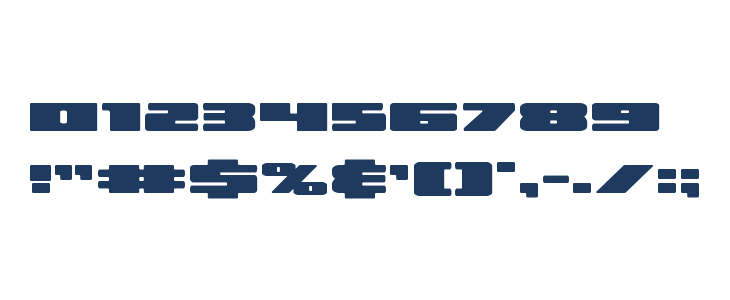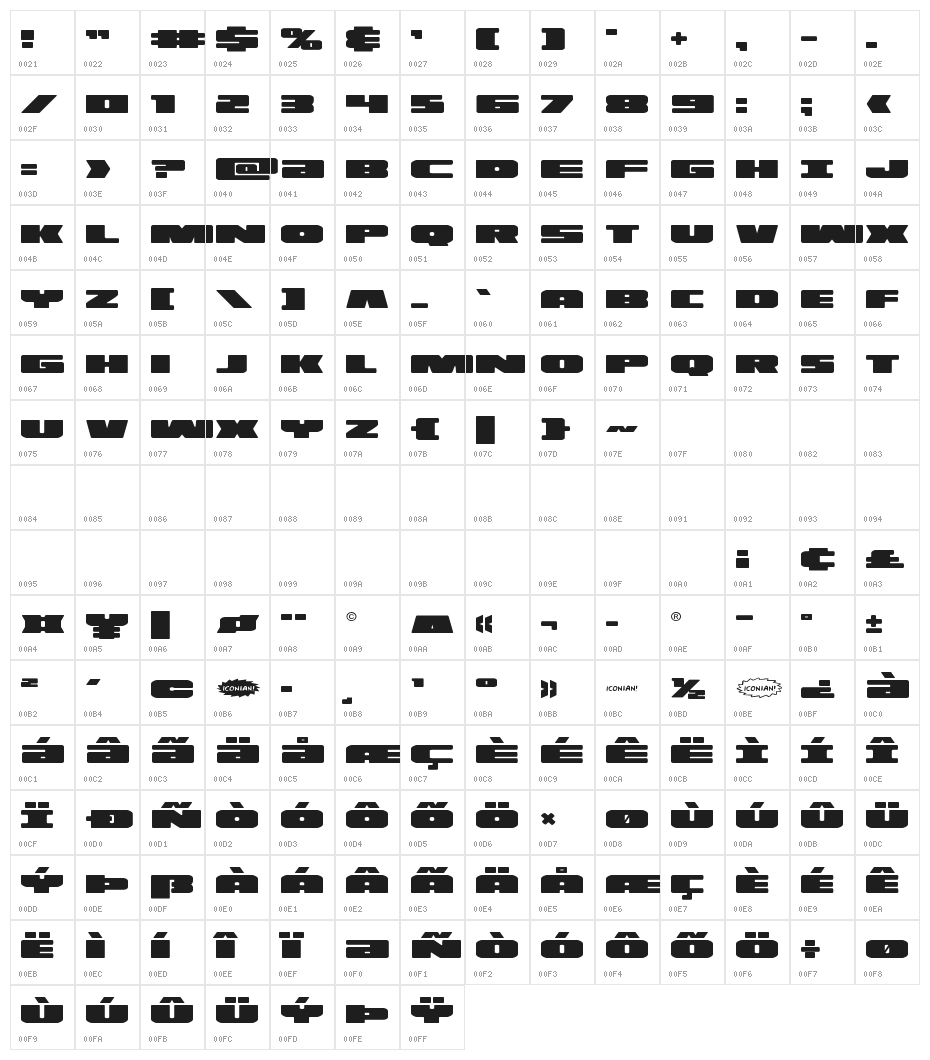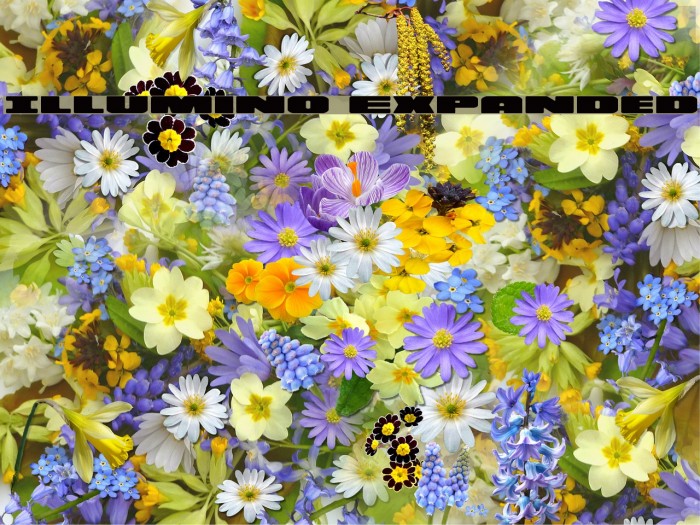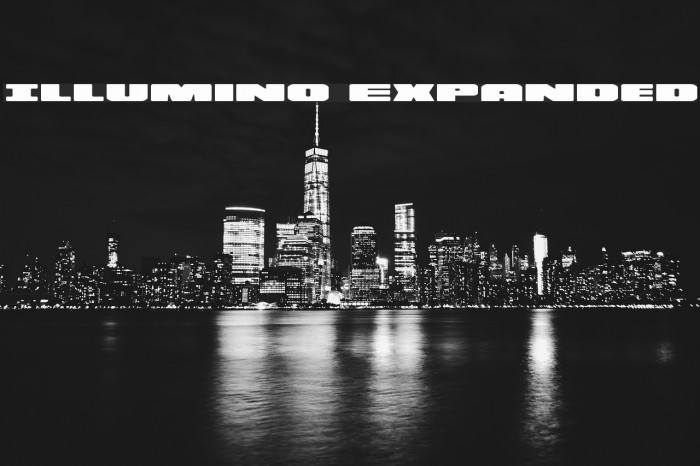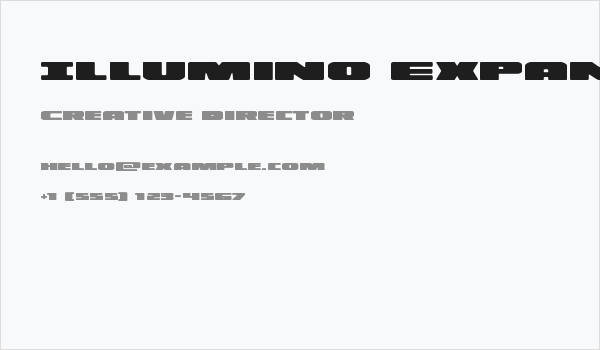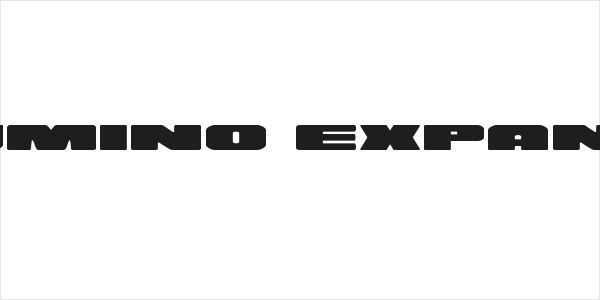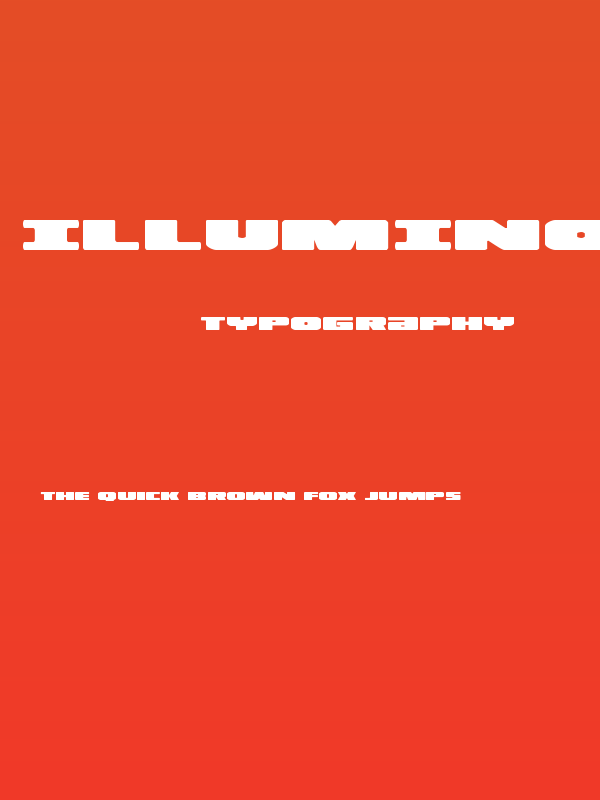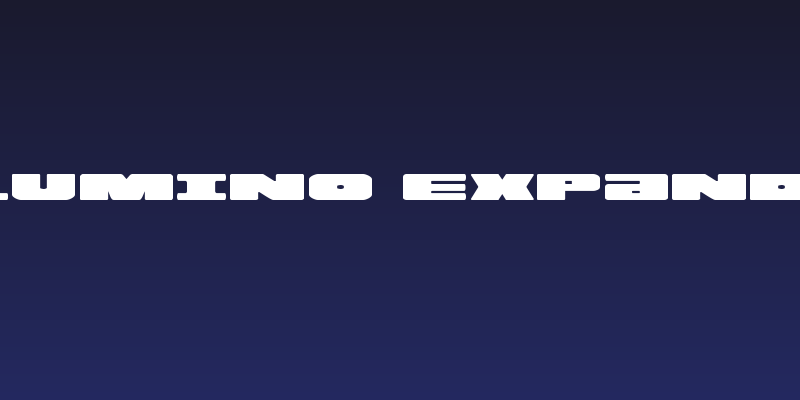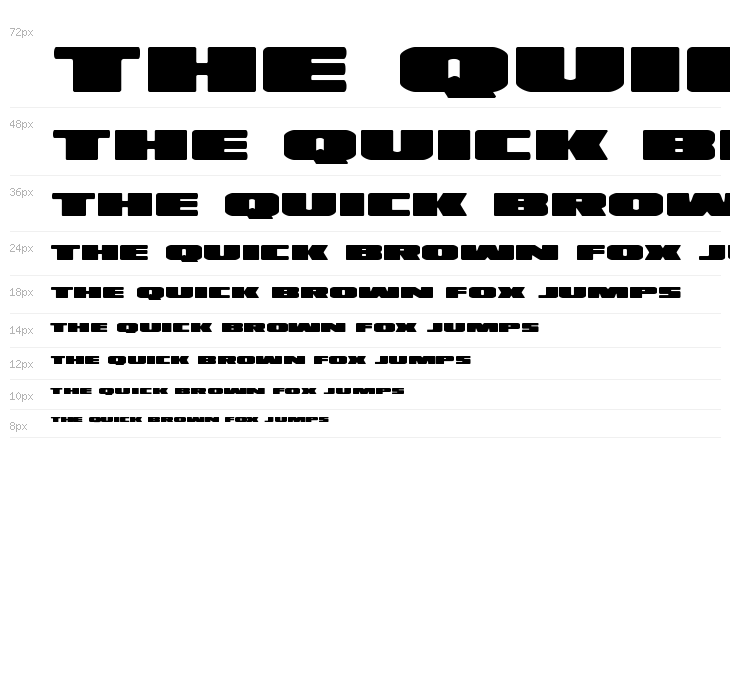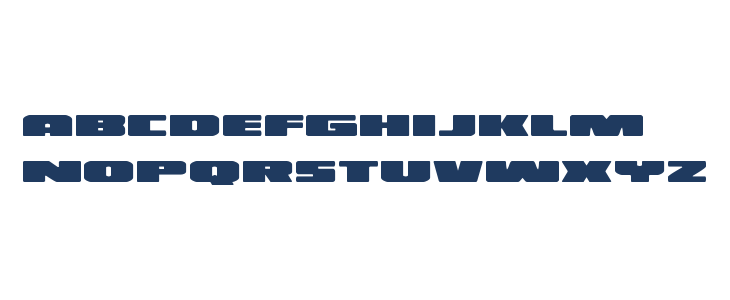
Illumino Expanded Font
Illumino Expanded Description
This font features a bold and expansive design, characterized by its wide, block-like letters that convey a strong and impactful presence. The uppercase letters are uniformly wide, creating a sense of stability and strength. The numbers and special characters maintain this boldness, ensuring consistency across all characters. The font's geometric shapes and solid fills make it ideal for attention-grabbing headlines or titles. Its modern and futuristic style is perfect for projects that require a bold statement.
| Proposed Projects | Ideal for headlines, posters, branding, and any design requiring a bold, modern look. |